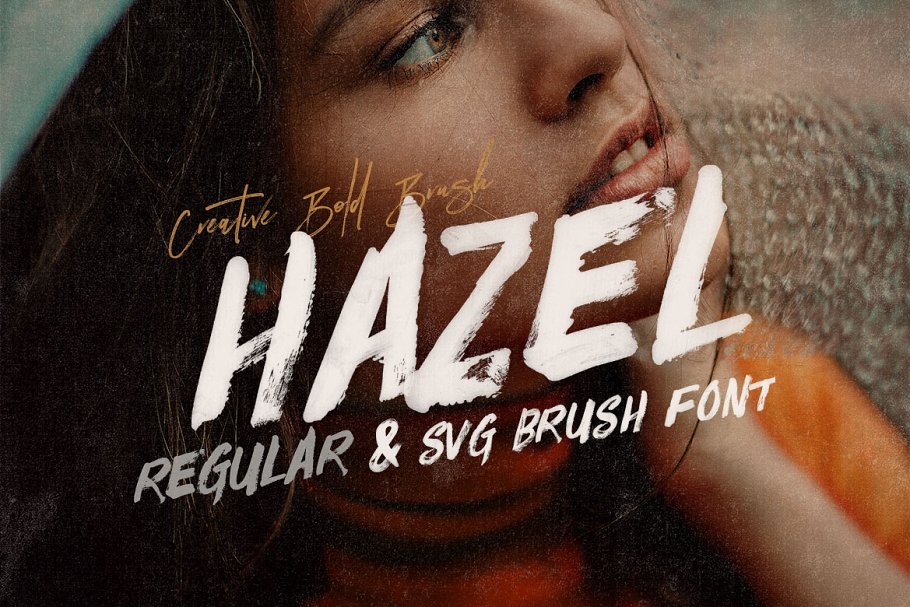
Introducing Hazel Brush & SVG Font, the perfect font for all your grunge and artistic projects! Created by Cruzine Design, this brush or grunge style sans display font will elevate your designs and give them a unique and edgy look.
But that's not all - Hazel Brush & SVG Font is not your ordinary font. It comes in two versions: a color or SVG opentype font and a regular OTF font. The color font is a new technology that is compatible with Photoshop CC 2017+, Illustrator CC 2018, and some Mac apps. With its vibrant and eye-catching colors, it will make your designs pop like never before.